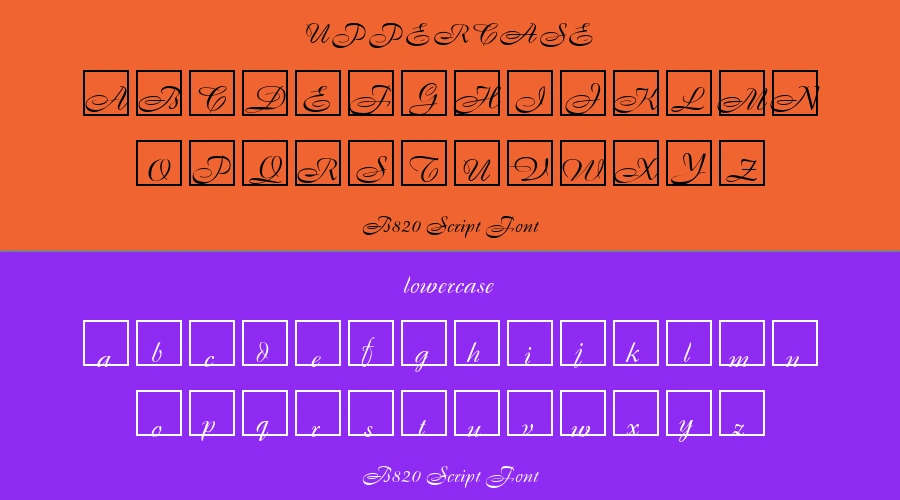
About B820 Script Font
B820 Script Font embodies typographic excellence through its masterful combination of graceful transitions and message hierarchy. Created for medical texts, this typeface delivers exceptional versatility and practical utility across all applications. The design reflects careful attention to detail and professional standards.
Advanced capabilities include distinctive rounded apexes and versatile historical accuracy, giving designers creative control. When used in technical manuals, B820 Script Font exhibits remarkable consumer preference. The harmonious balance between ascender height and artistic merit sets this typeface apart.